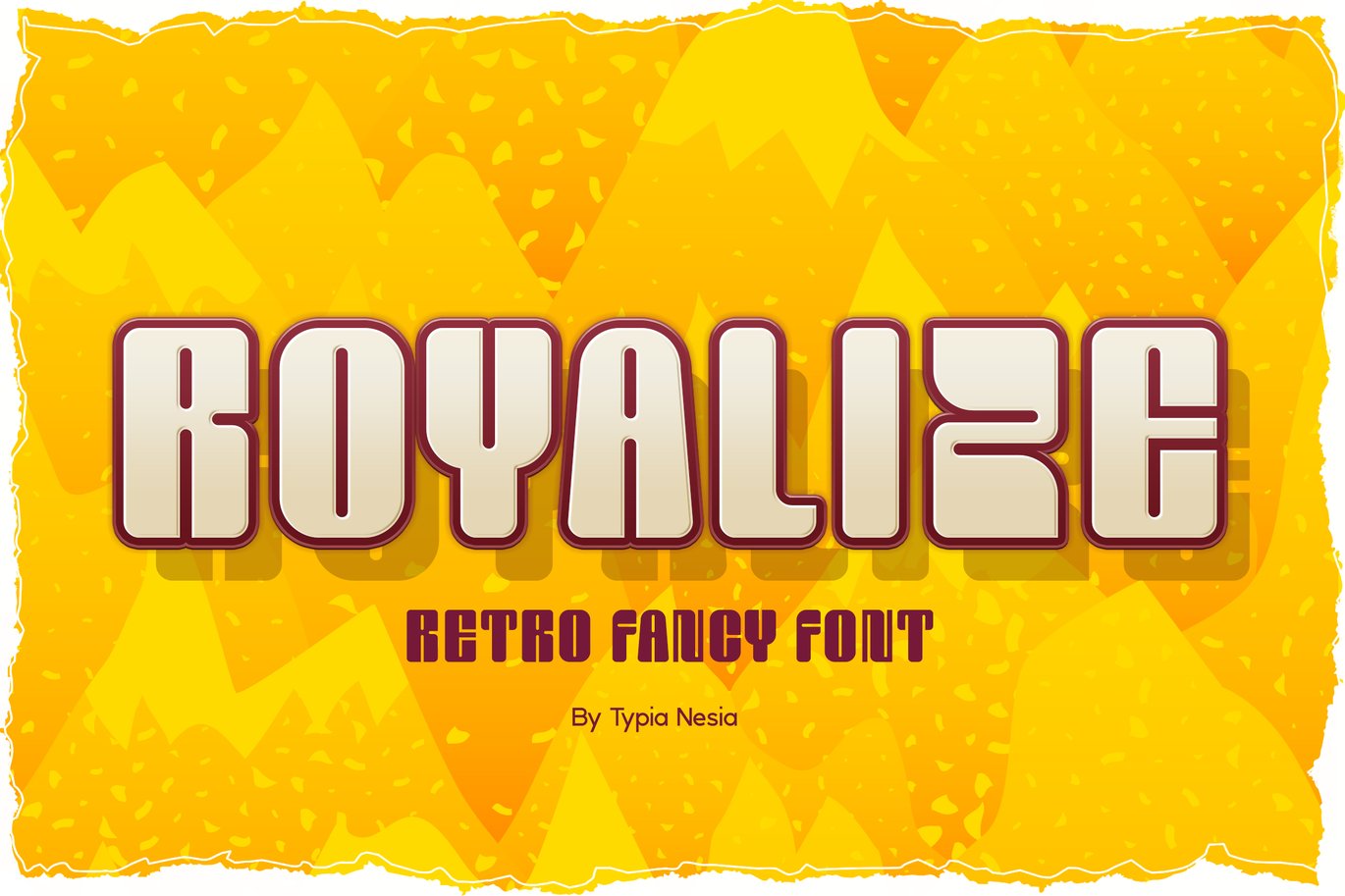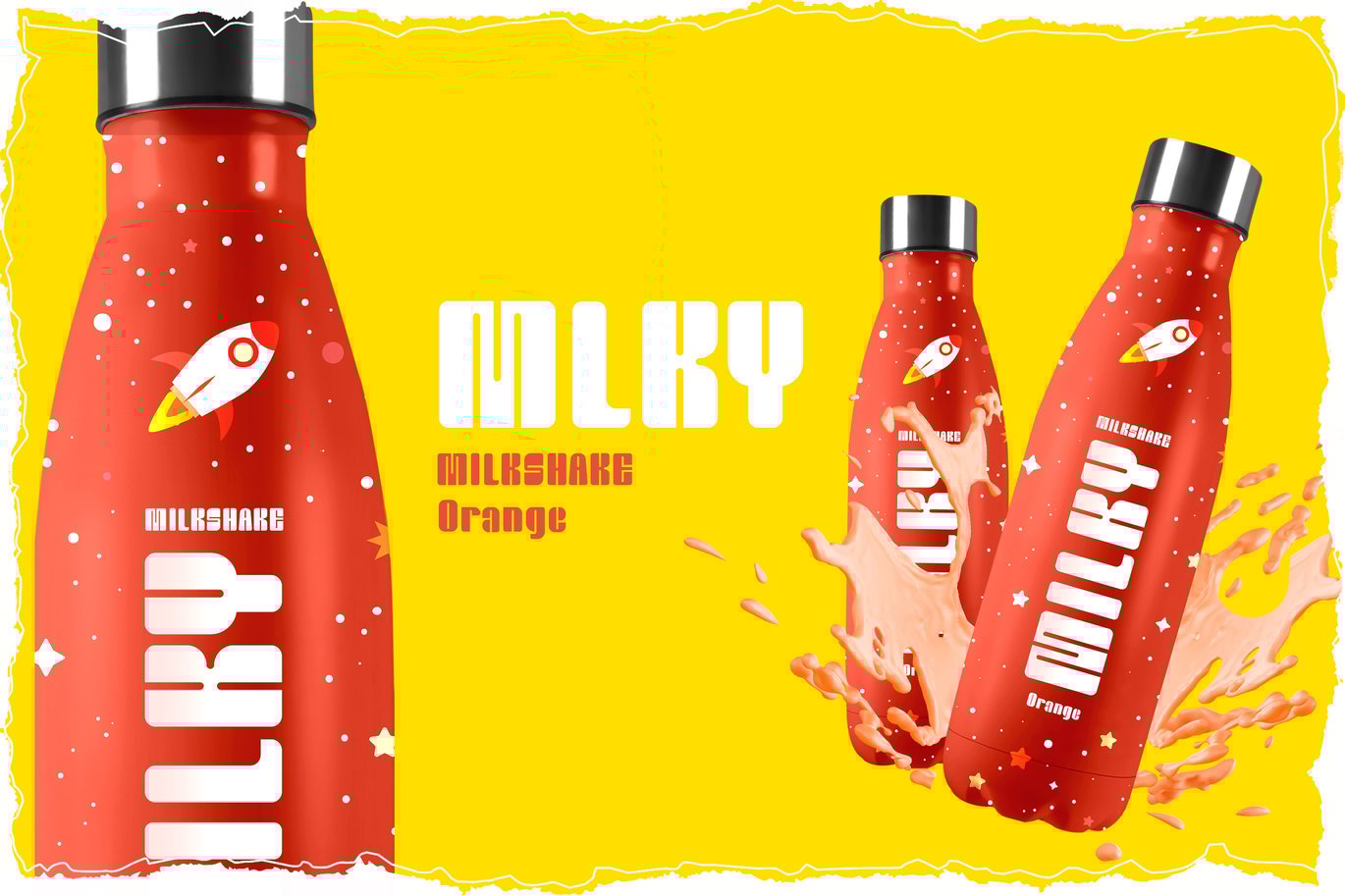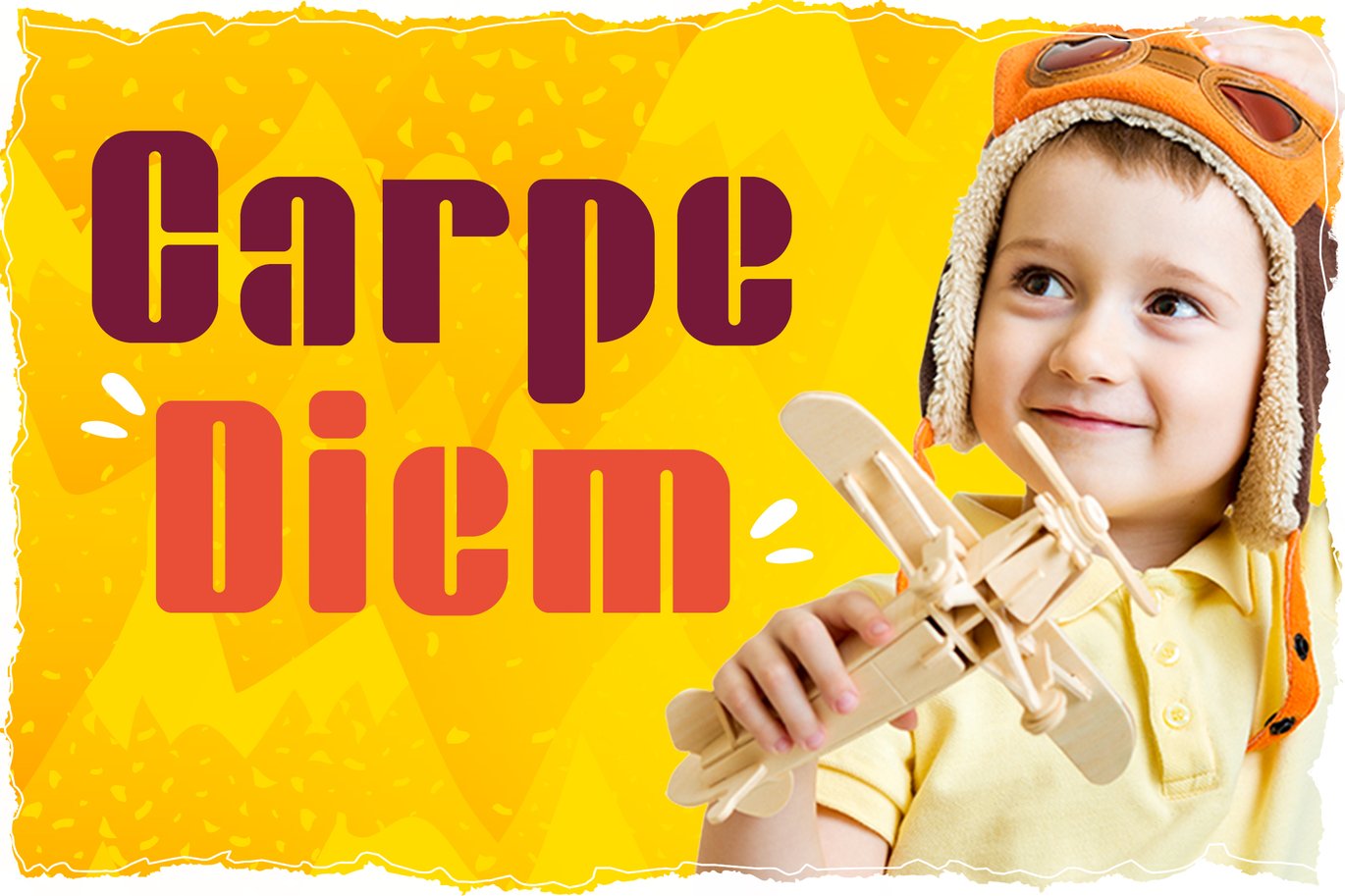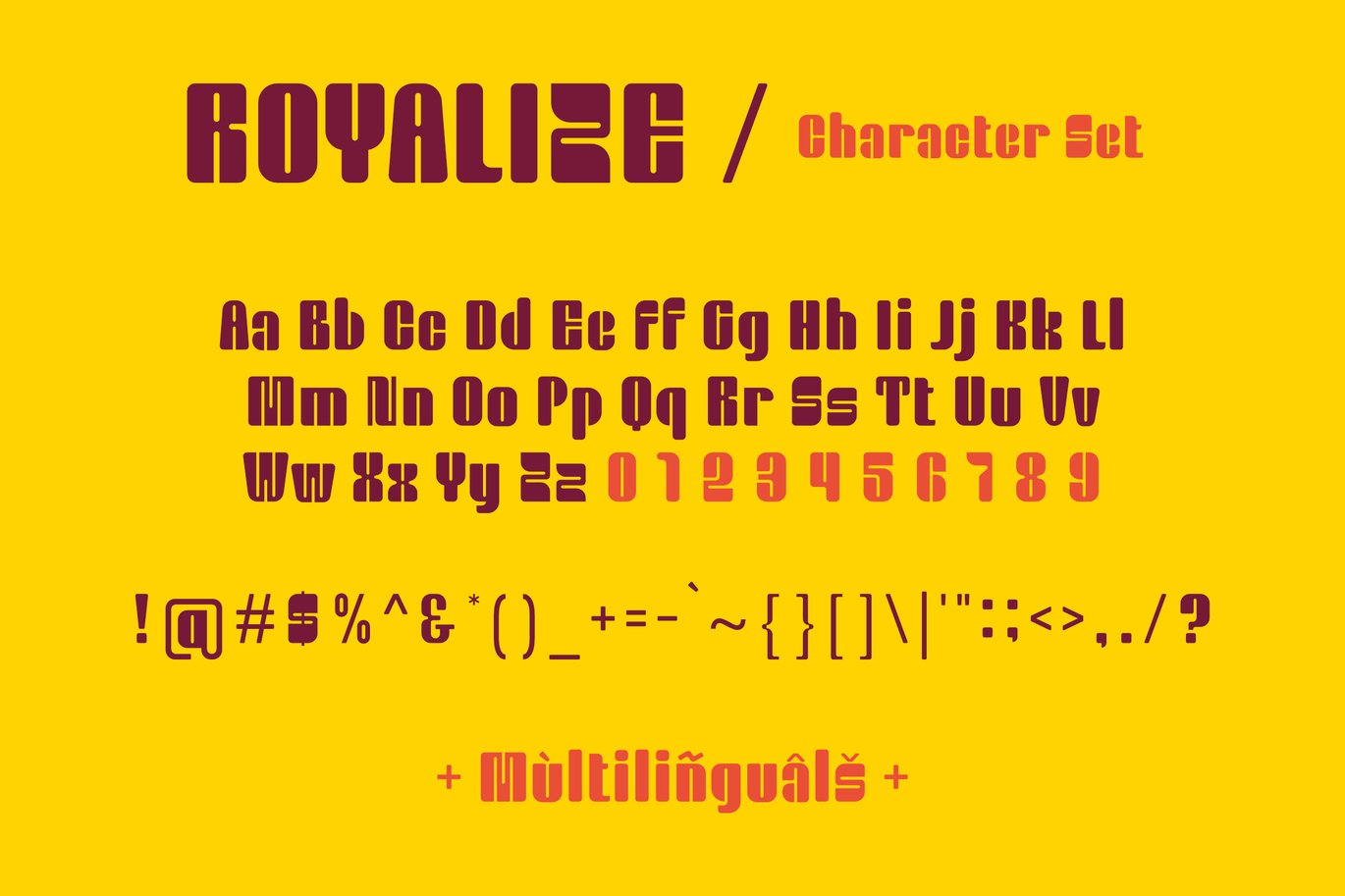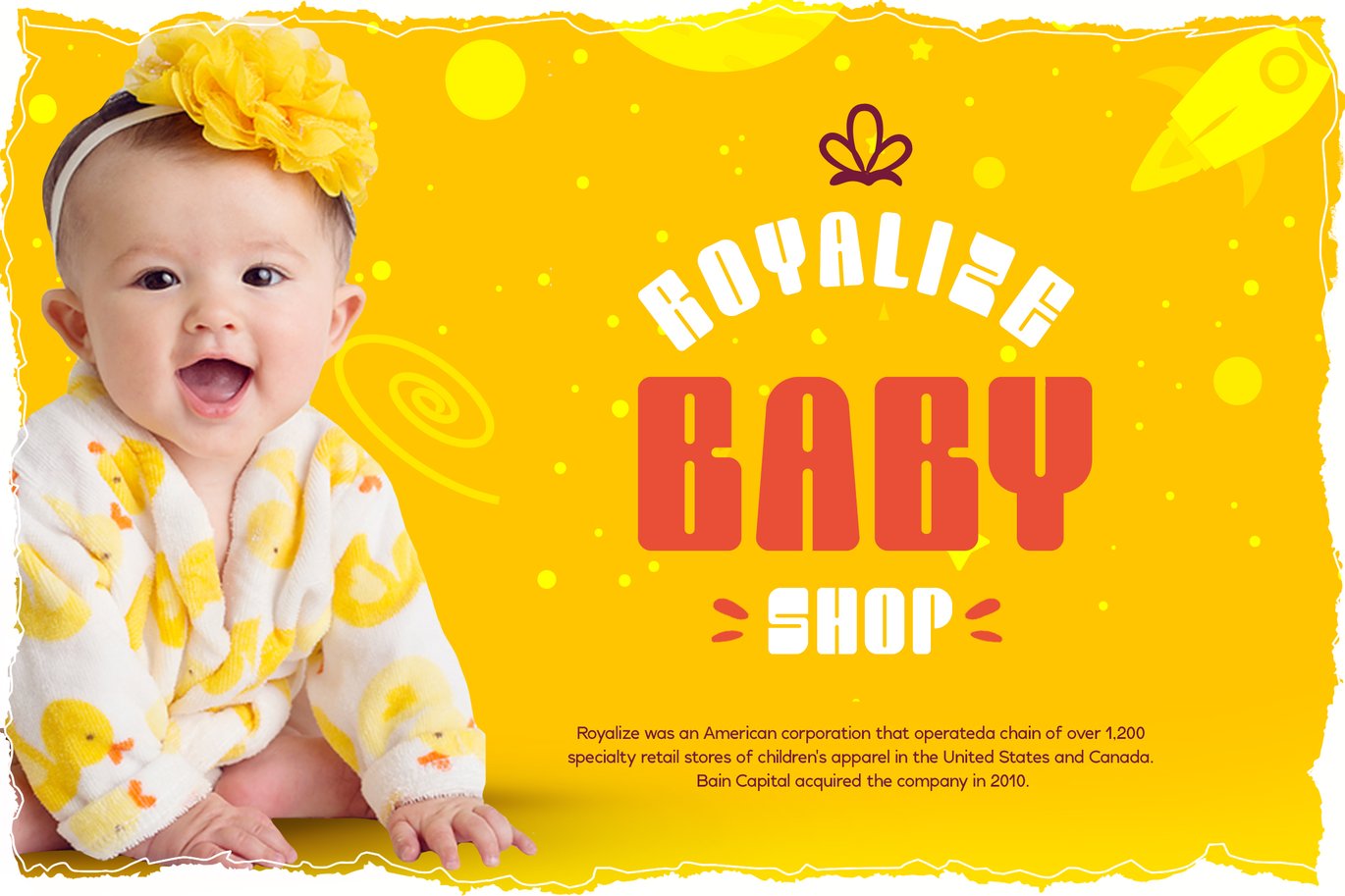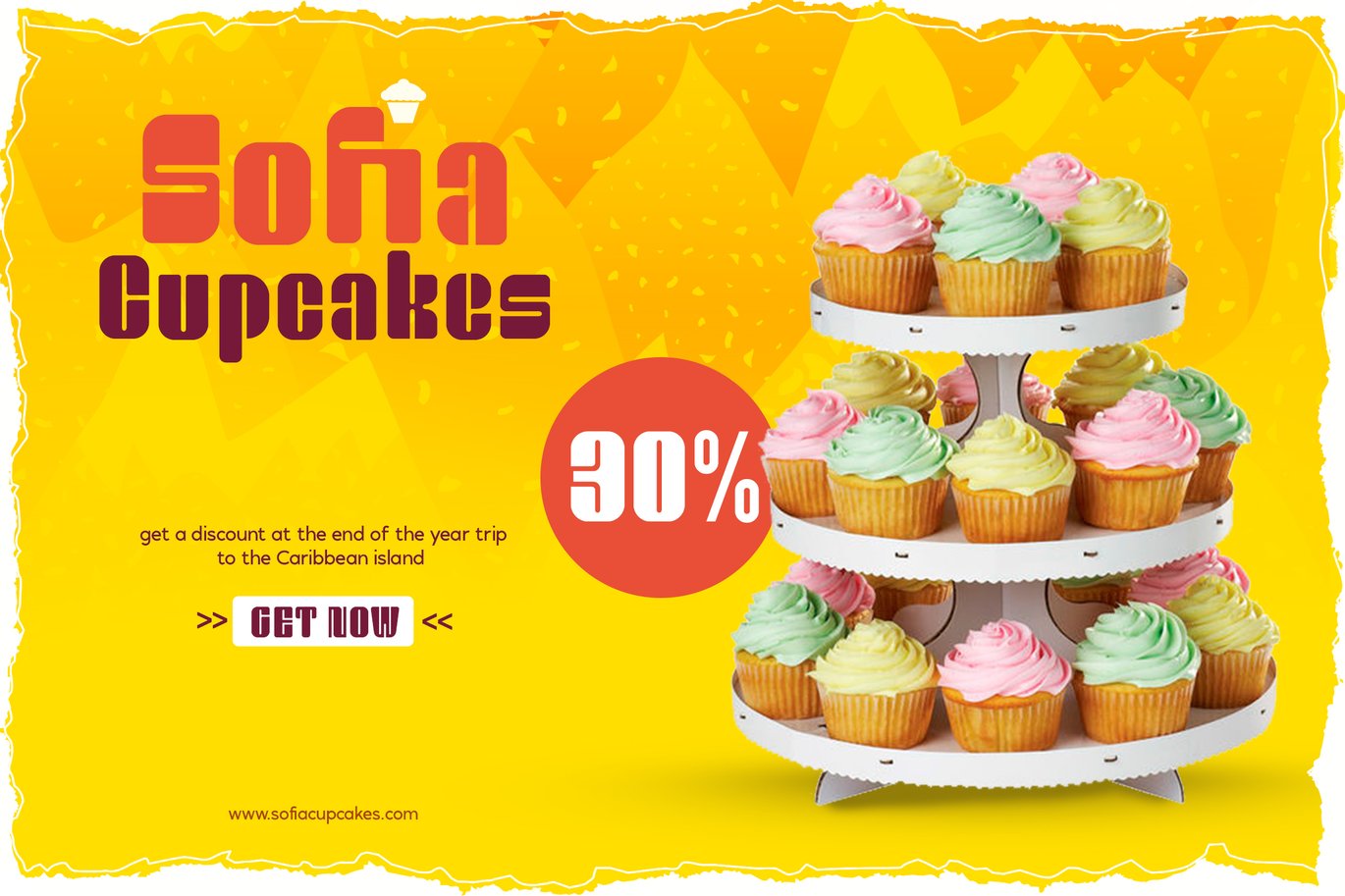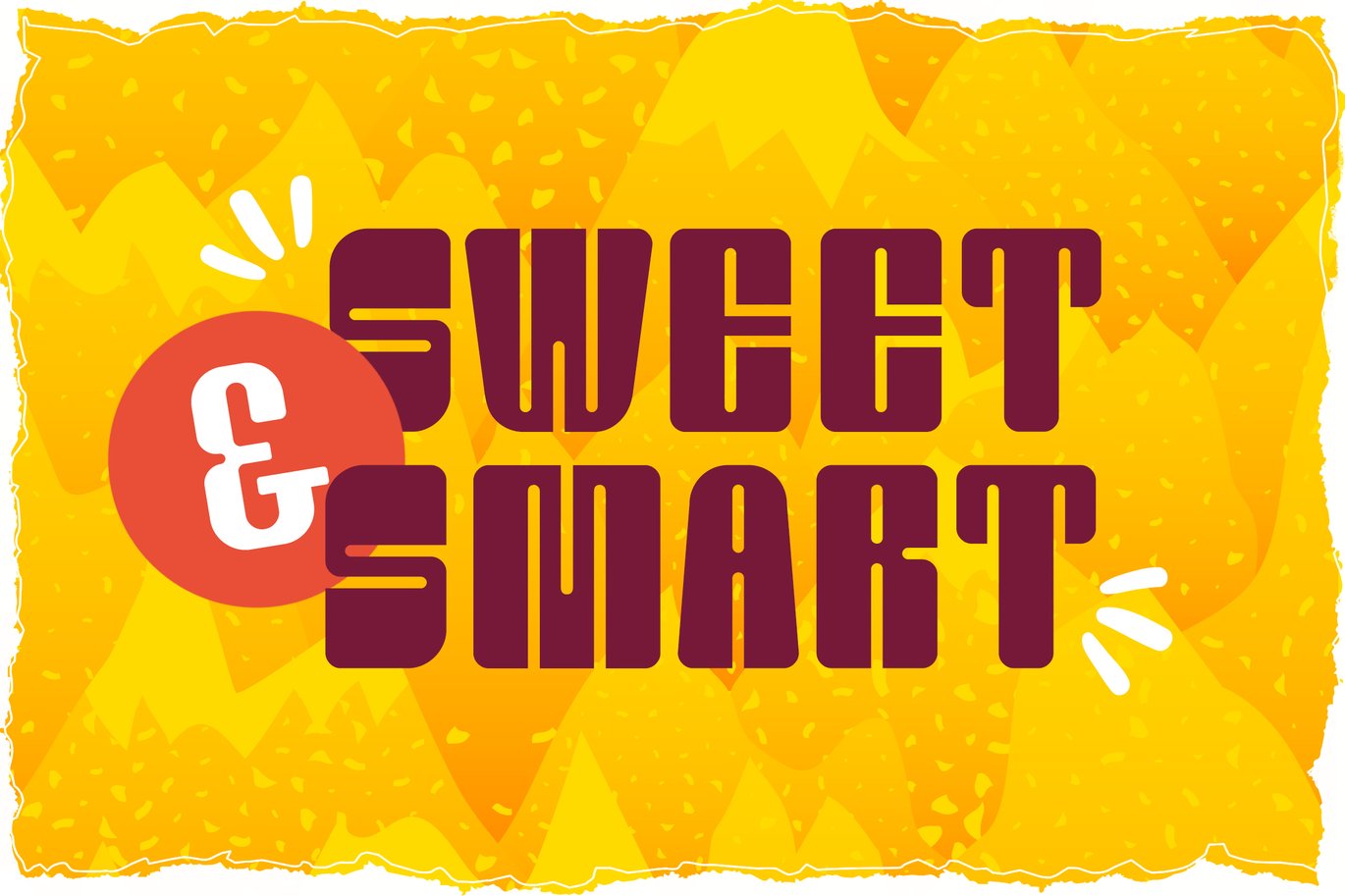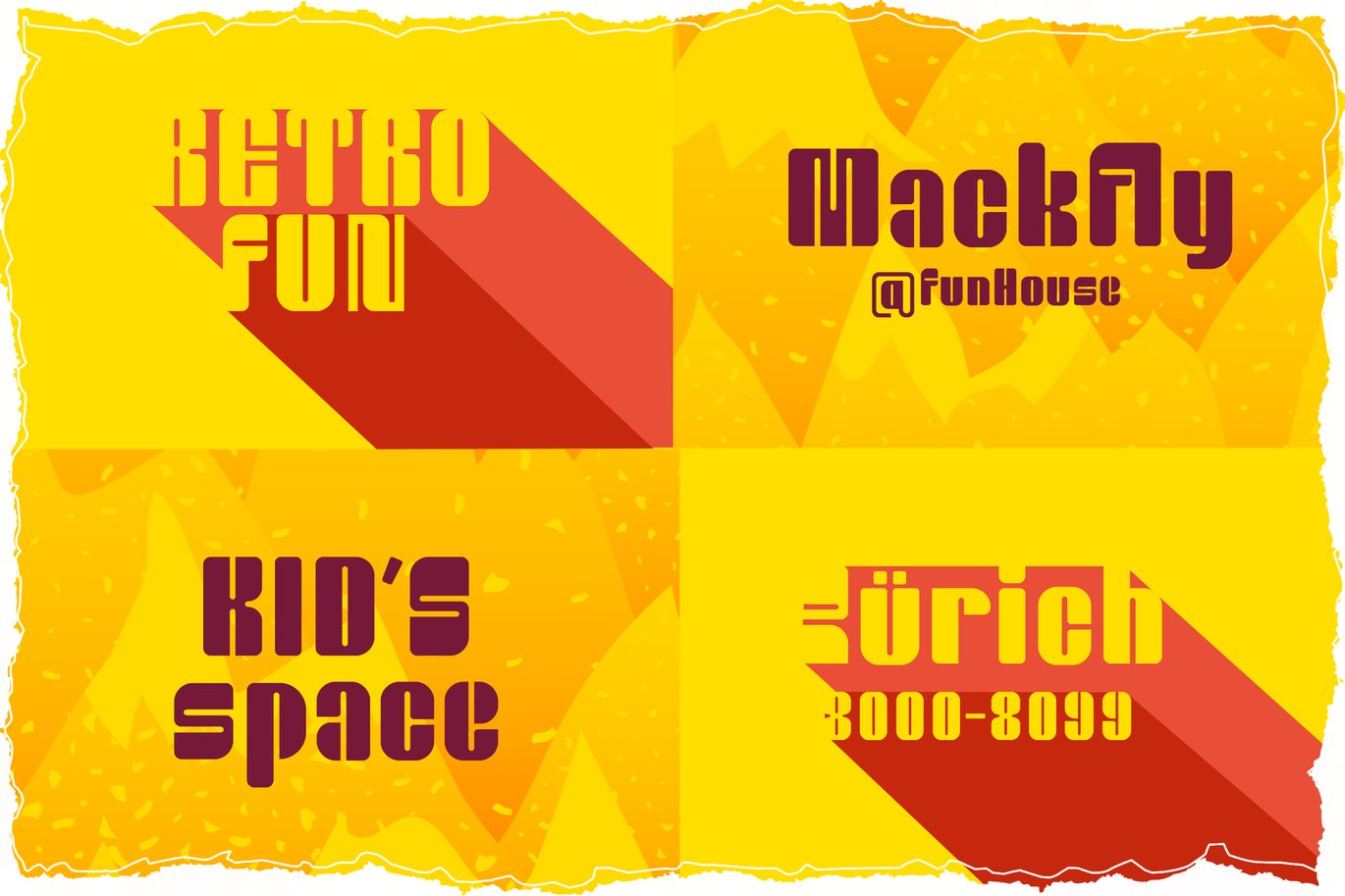
Royalize – Fun Fancy Font
Royalize – Retro Funny Fun Fancy Font
Royalize is perfect for your up coming projects. Such as logo branding, editorial design, stationery design, blog design, modern advertising design, card invitation, art quote, home decor, book/cover title, special events ( birthday, etc ), and any more.